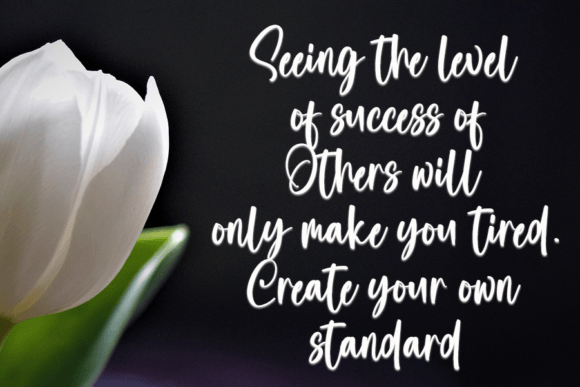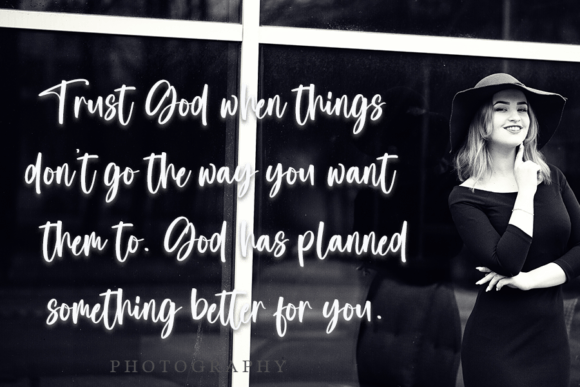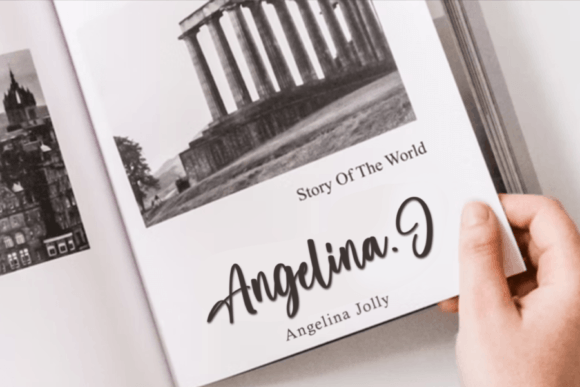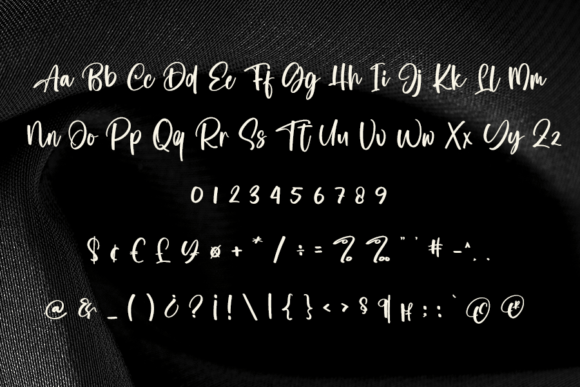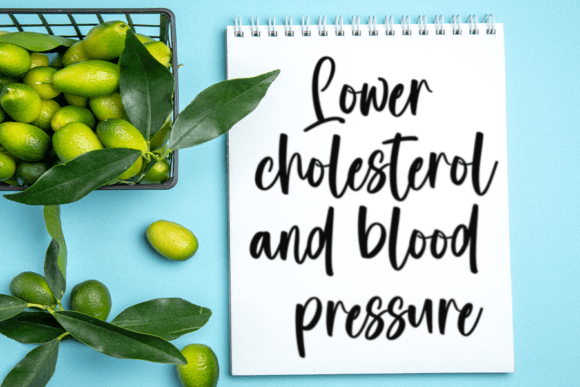
Dashing Font
About Dashing Font
A Neat and Beautiful Handwritten Font
The Dashing Font is a neat and beautiful handwritten typeface that adds an elegant and timeless touch to any project. Its clean, flowing lines and distinctive style make it an excellent choice for a variety of creative applications. Whether you’re designing wedding invitations, logos, greeting cards, or any other creative design, the Dashing Font brings a polished, sophisticated feel to your work.
Perfect for Wedding Invitations and Special Occasions
If you’re creating wedding invitations, thank you cards, or event stationery, the Dashing Font is a perfect fit. Its delicate yet bold handwritten style adds a unique, personalized touch to your designs, making them feel special and memorable. Whether for a wedding, birthday, or holiday event, this font elevates your invitations with elegance and refinement.
Ideal for Logos and Branding
The Dashing Font works beautifully for logos and branding materials. Its neat, stylish design ensures that your brand stands out with timeless appeal and elegance. Whether you’re designing a company logo, brand name, or slogan, this font gives your brand a distinctive and professional identity. Its versatility ensures it works across various industries, from luxury goods to creative services.
Great for Greeting Cards and Personalized Messages
The Dashing Font is also ideal for creating greeting cards, thank you notes, holiday messages, and other personalized designs. Whether you’re creating cards for Christmas, Valentine’s Day, or any special occasion, this font adds a heartfelt, personal touch to your messages. Its elegant handwritten design ensures that your cards feel warm and genuine, making them truly unique.
Versatile for Multiple Design Applications
The Dashing Font is incredibly versatile, making it suitable for a wide range of design projects. Whether you’re working on flyers, website headers, posters, business cards, or social media graphics, this font adds an elegant, distinctive touch to your designs. Its timeless style ensures that it works across both digital and print media, making it perfect for both personal and business projects.
Elegant, Timeless, and Legible
Despite its elegant and artistic design, the Dashing Font remains legible and easy to read. Its smooth, flowing strokes ensure that your text remains clear and readable, even at smaller sizes or when used for longer passages. Whether you’re designing headlines, captions, or body text, this font ensures your designs are both visually appealing and easy to comprehend.
Add Elegance and Charm to Your Designs with Dashing Font
If you’re looking for a neat, elegant, and timeless handwritten font to enhance your designs, the Dashing Font is the perfect choice. Whether you’re working on wedding invitations, logos, greeting cards, or social media posts, this font adds a unique, charming touch to your work. Make your designs stand out with the Dashing Font and create spectacular designs that leave a lasting impression.